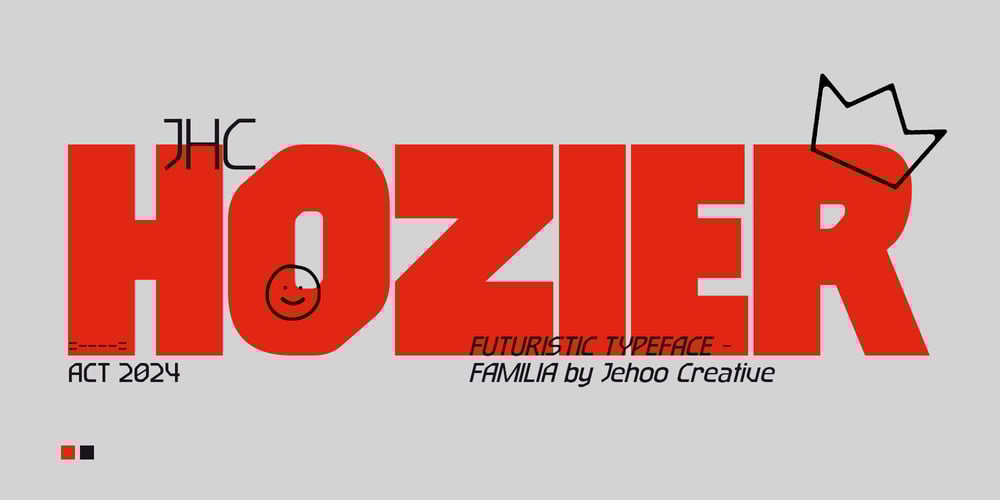
JHC Hozier Font Family was designed by Anwar Patihan and published by Jehoo Creative. JHC Hozier contains 18 styles and family package options. Introducing JHC Hozier, a font that embodies the essence of the future with its sleek and captivating design. Each letter exudes a sense of modernity, drawing the eye with its clean lines and innovative aesthetic.Whether used for headlines, logos, or digital displays, JHC Hozier commands attention with its striking appearance. It effortlessly blends elegance with innovation, making it a go-to choice for designers who seek to make a statement.